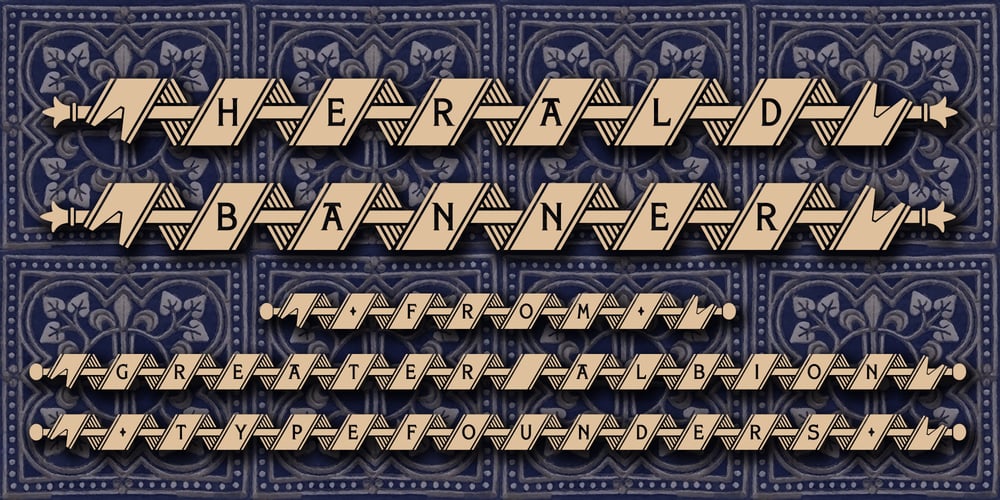
Herald Banner Font Family was designed by Paul James Lloyd and published by Greater Albion Typefounders. Herald Banner contains 1 styles and family package options. Herald Banner is the newest (as at January 2017) of Greater Albion’s ‘Banner’ or ‘Masthead’ typeface. It tales the form of letters on a long heraldic banner twined about a central mace. It is offered in two forms- a conventional monochrome typeface and a set of eight interrelated typefaces designated ‘Colour’ 1 through to ‘Colour 8’. These (and indeed the monochrome face) have identical metrics and can be overlaid to produce multi-coloured lettering with the bare minimum of effort.